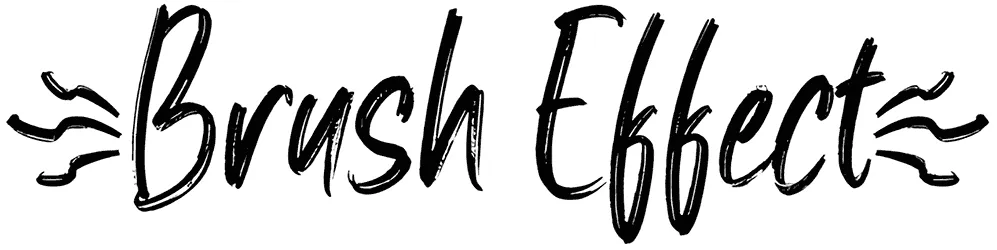
Brush Effect Font
Look no further than Brush Effect if you need a whimsical . This tool is great for making logos, invitations, greeting cards, and banners that stand out, especially if they are for kids.